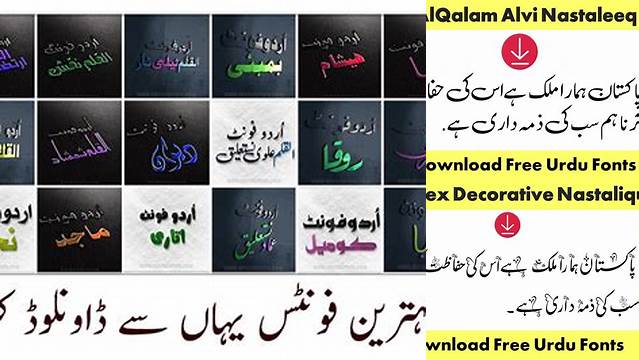
Urdu Fancy Fonts Generator: Your Guide To Stunning Text
Are you ready to add a touch of elegance and flair to your Urdu text? The Urdu Fancy Fonts Generator is your go-to tool for transforming ordinary words into visually captivating designs. Whether you're a seasoned graphic designer, a social media enthusiast, or simply someone who loves the beauty of Urdu script, this generator opens up a world of creative possibilities. This comprehensive guide delves into the various aspects of the Urdu Fancy Fonts Generator, providing you with insights, tips, and tricks to make the most of this powerful tool. So, let's dive in and explore how you can create stunning Urdu typography that leaves a lasting impression!
Unveiling the Magic of Urdu Fancy Fonts Generator
Hey guys, let's talk about the Urdu Fancy Fonts Generator! It's like having a magic wand for your Urdu text. Imagine turning plain, boring words into something super eye-catching and stylish. That's exactly what this generator lets you do! It's all about making your words pop, whether you're creating social media posts, designing invitations, or spicing up your website. The best part? You don't need to be a design expert to get awesome results. The Urdu Fancy Fonts Generator is designed to be user-friendly, making it accessible to everyone, from beginners to pros. Think of it as your secret weapon for crafting beautiful Urdu typography that grabs attention and keeps people hooked. The goal is to make your text not just readable, but also a visual treat. With a few clicks, you can transform your Urdu words into something truly special. It's all about expressing your creativity and adding a personal touch to your digital content. So, let's get creative and explore the endless possibilities the Urdu Fancy Fonts Generator offers!
Why Use Urdu Fancy Fonts?
Okay, so why bother with fancy fonts, right? Well, the Urdu Fancy Fonts Generator offers a bunch of awesome benefits. Firstly, it helps you stand out from the crowd. In a world where everyone's competing for attention, using unique fonts makes your content more memorable. It's like adding a dash of personality to your words! Secondly, fancy fonts enhance readability and visual appeal. The right font can make your text easier to read and more enjoyable to look at. Think of it as making your words more user-friendly. Thirdly, fancy fonts boost engagement. When your text looks good, people are more likely to stop and read it. This is especially important on social media, where you have only a few seconds to grab someone's attention. Moreover, fancy fonts can be used to convey a specific mood or tone. Whether you want to express elegance, playfulness, or a sense of tradition, the font you choose can help you achieve that. Finally, using the Urdu Fancy Fonts Generator lets you add a professional touch to your designs. It's a simple way to make your work look polished and well-crafted. In short, using the Urdu Fancy Fonts Generator is a smart move if you want your Urdu text to shine!
Key Features and Benefits of Urdu Fancy Fonts Generator
Alright, let's dive into the cool stuff! When we talk about the Urdu Fancy Fonts Generator, we're really talking about a bunch of awesome features that make it stand out. First off, these generators often offer a wide variety of fonts. You'll find everything from elegant and traditional styles to modern and playful designs. This variety ensures you can find the perfect font to match your specific needs. Secondly, most generators are super easy to use. You don't need any special skills or software to get started. Usually, you just type in your text, select your desired font, and voila – you've got a fancy text! Thirdly, many generators are compatible with different platforms. This means you can use your fancy text on social media, in your documents, or even on your website. It's all about flexibility and ease of use. Fourthly, some generators offer customization options. You might be able to adjust the size, color, and even the spacing of your text. This gives you even more control over your design. Fifthly, using an Urdu Fancy Fonts Generator is a great way to save time. Instead of spending hours designing fonts yourself, you can get a ready-made solution in seconds. And finally, many generators are free to use. This makes it accessible to everyone, regardless of their budget. So, whether you're a designer, a student, or just someone who loves Urdu script, the Urdu Fancy Fonts Generator has something for you!
Unleashing Creativity with Urdu Typography Tools
Time to get those creative juices flowing! The Urdu Fancy Fonts Generator is a gateway to a world of artistic expression. This section will explore how you can leverage the generator to create stunning designs. It's all about experimenting with different fonts and styles to find what works best for you. Think of it as a fun playground where you can unleash your imagination and bring your ideas to life. Whether you're designing a logo, a social media post, or a poster, the generator is your ally in creating eye-catching visuals. Let's look at the specific ways you can harness the power of Urdu typography tools to make your text truly stand out!
How to Choose the Right Urdu Fancy Font for Your Project
Choosing the right font is like picking the perfect outfit – it needs to match the occasion! With the Urdu Fancy Fonts Generator, you have a huge selection to choose from, so how do you pick the best one? First, consider your project's purpose. Are you creating a formal invitation or a playful social media post? The tone of your project will guide you toward a suitable font style. Second, think about your target audience. What kind of fonts would they appreciate? Understanding your audience is crucial for making your message resonate. Third, pay attention to readability. Make sure the font you choose is easy to read, especially if your text is lengthy. You want people to enjoy reading your text, not struggle with it! Fourth, experiment with different fonts. Try out various styles to see which ones best fit your vision. Don't be afraid to try new things and push the boundaries. Fifth, consider the font's visual appeal. Does it match the overall aesthetic of your project? The goal is to create a harmonious design that looks good. And finally, always test your design before you finalize it. Make sure it looks good on different devices and platforms. By following these tips, you can find the perfect Urdu Fancy Fonts to elevate your project and make it unforgettable!
Creating Engaging Social Media Posts with Urdu Fancy Fonts
Social media is all about grabbing attention quickly, and that's where the Urdu Fancy Fonts Generator shines! Here's how to create engaging social media posts that stop the scroll. First, use the generator to create eye-catching headlines. A bold, unique font can instantly make your post stand out in a crowded feed. Second, keep your text concise. Social media users have short attention spans, so get straight to the point. Third, use fonts that match your brand's personality. Consistency is key to building a strong brand identity. Fourth, add visual elements. Pair your fancy text with images or videos to make your posts more appealing. Fifth, use the generator for captions and quotes. A beautifully styled quote or caption can resonate deeply with your audience. Sixth, experiment with different font styles. Try out various designs to see which ones get the most engagement. Seventh, create a consistent posting schedule. This helps you build a loyal following and keep your audience engaged. Eighth, optimize your posts for different platforms. Consider the font size and style that works best on each platform. And finally, track your results. See which posts perform best and adjust your strategy accordingly. The Urdu Fancy Fonts Generator is a powerful tool, so be creative, have fun, and watch your social media presence soar!
Designing Logos and Branding with Urdu Fancy Fonts
Logos and branding are all about creating a strong visual identity, and the Urdu Fancy Fonts Generator is a valuable asset in this process. Let's explore how to use fancy fonts to design logos and build a memorable brand. First, choose a font that reflects your brand's values. Does your brand represent tradition, modernity, or something else? The font should align with that. Second, ensure the font is scalable. Your logo should look good at any size, from a business card to a billboard. Third, create a mood board to inspire your design. This helps you visualize your brand's overall aesthetic. Fourth, use the generator to create variations of your logo. Experiment with different fonts, colors, and layouts. Fifth, get feedback from others. Ask friends, family, or potential clients for their opinions. Sixth, consider the cultural context. Make sure your font is appropriate for your target audience. Seventh, use the font consistently across all your branding materials. Consistency reinforces brand recognition. Eighth, create a style guide. This ensures that everyone uses your logo and font correctly. And finally, keep it simple. A clean, uncluttered logo is often the most effective. The Urdu Fancy Fonts Generator helps you create a unique and professional brand that resonates with your audience!
Exploring the Best Urdu Font Generators Online
Alright, let's talk tools! There's a whole bunch of Urdu Fancy Fonts Generators out there, and each one brings its own unique features to the table. Knowing which one to use can make all the difference. This section will delve into some of the best online generators, comparing their features and benefits. We'll also explore how to choose the best generator for your specific needs and project requirements. So, let's discover some of the top Urdu Fancy Fonts Generators and unlock the full potential of your text!
Conclusion: Embrace the Beauty of Urdu Typography
So, there you have it, guys! The Urdu Fancy Fonts Generator is an incredible tool that empowers you to create stunning Urdu typography. We've covered everything from the basics to advanced techniques, exploring various applications and best practices. Now it's your turn to dive in, experiment, and unleash your creativity! Remember, the best way to master this tool is to practice and explore its endless possibilities. Let the beauty of Urdu script inspire you to create beautiful and meaningful designs. Happy designing!